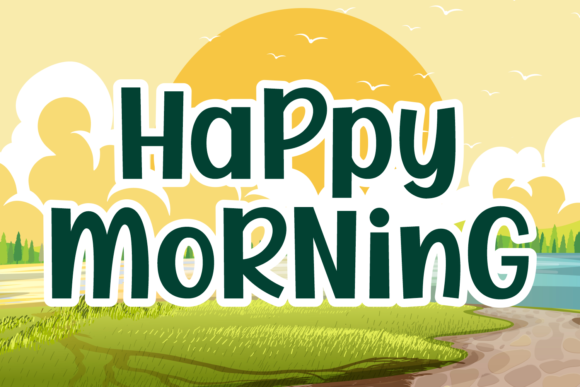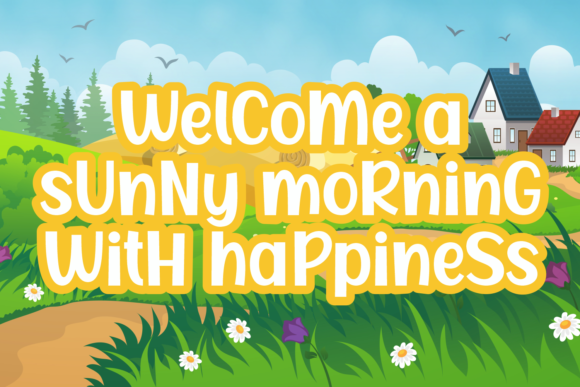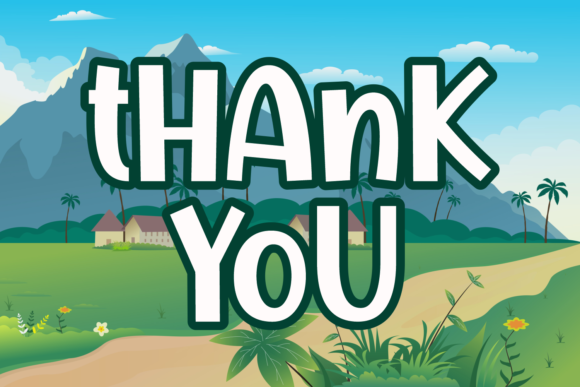
Have you ever stared at a blank canvas, wondering where to begin? Maybe you’re planning a birthday party for a friend, or designing a new logo for your business. Whatever the project, the right font can make all the difference. That’s where the Holla Pidie Font comes in – a cute and playful handwritten font that’s sure to bring a smile to anyone’s face.
This charming font is perfect for creating spring cards, birthday invitations, posters, quotes, branding, and even t-shirts. With its whimsical touch, Holla Pidie Font adds a personal and unique touch to any design. Whether you’re a seasoned designer or just starting out, this font is a valuable addition to your toolkit. Its versatility and charm make it an essential resource for anyone looking to add a little personality to their projects.
- Unique Characteristics: Holla Pidie font features a unique, hand-drawn style with bold lines and playful flourishes, making it perfect for creative and eye-catching designs.
Overall, I think the Holla Pidie font has some great qualities, but it also has some limitations that prevent it from being a top choice for me.
- ✨ Unique and playful design: Holla Pidie has a distinct personality that can add a fun touch to digital and print designs.
- ✨ Versatile: The font can be used in a variety of contexts, from headings to body text, and even for logos and branding.
- ✨ Good legibility: Despite its playful nature, Holla Pidie is still easy to read, making it a great choice for long-form content.
- ⚠️ Limited font sizes: Holla Pidie can become difficult to read at very small sizes, which may limit its use in certain applications.
- ⚠️ May not be suitable for formal designs: The font’s playful nature may not be suitable for formal or professional designs, such as business reports or academic papers.
Overall impression:
I would recommend Holla Pidie to designers looking for a fun and playful font to add some personality to their designs. However, it’s not the best choice for formal or professional designs, and it may not be suitable for very small font sizes.
Holla Pidie Font is ideal for:
- Creative projects, such as posters, flyers, and social media graphics
- Branding and marketing materials, such as logos and business cards
- Designing digital products, such as e-books and presentations